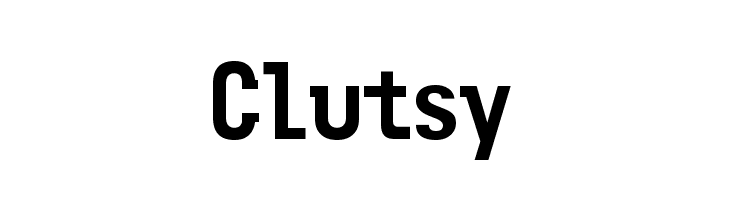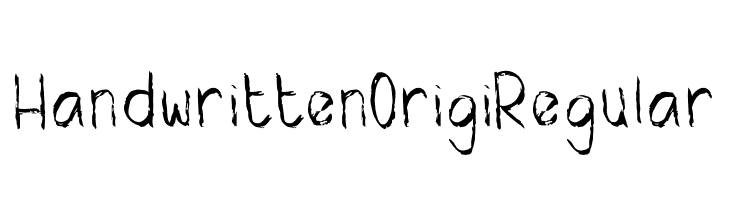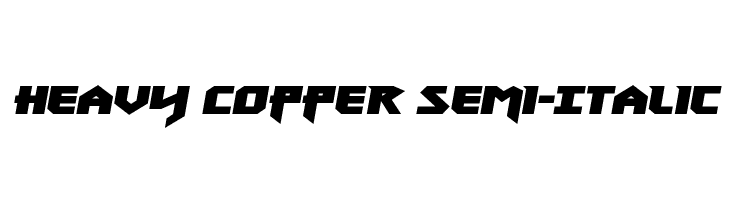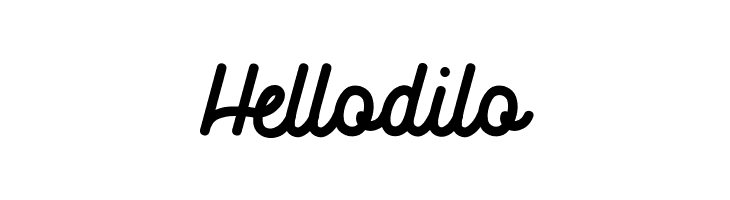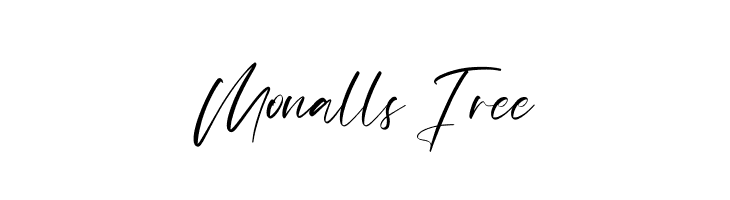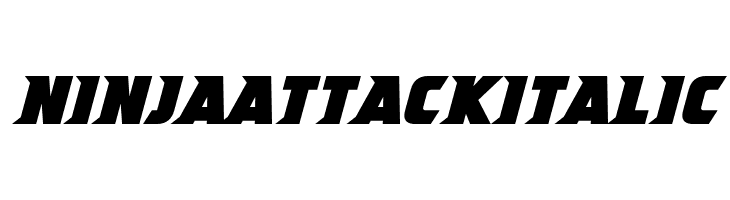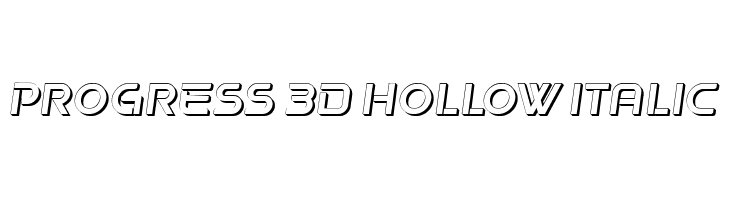
A bold slab serif font with a modern yet classic style.
A bold, eclectic display typeface with diverse styles and modern appeal.
A playful, casual handwritten font with smooth curves and a friendly feel.
A bold, italicized font with a strong, elegant presence.
A tall, slender font with a modern and minimalist style.
A flowing, cursive script font with elegant, connected strokes and an italic slant.
A bold, 3D hollow italic font with a modern and dynamic style.
A bold, cursive script font with dynamic, sweeping strokes.
A flowing, cursive script font with elegant, connected letters.
A bold, geometric font with a retro, industrial style.